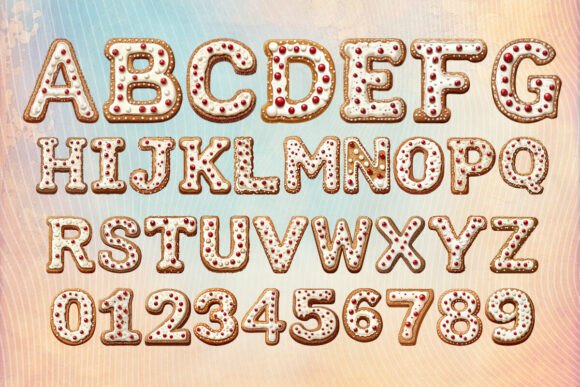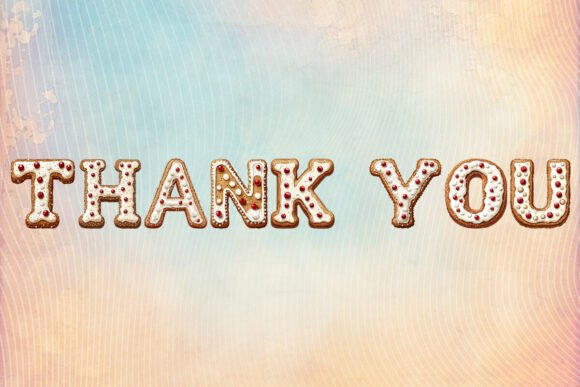
Gingerbread Cookies Font
Unleash your festive creativity with the delightful Gingerbread Cookies Alphabet. Perfect for Christmas-themed projects, this font captures the nostalgic charm of freshly-baked gingerbread cookies. Offering 36 unique characters, including both letters and numbers, this font provides a delicious twist to your holiday designs. It’s not just a typeface, it’s a visual feast that evokes the warmth and joy of the holiday season. Embrace the spirit of Christmas by enhancing your designs with the Gingerbread Cookies Alphabet.